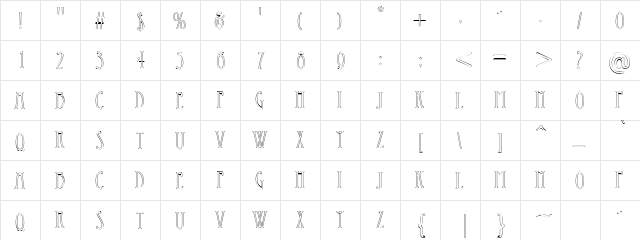
Decent GK Light
Design Context for Decent GK Typeface
Decent GK is a composed and adaptable typeface that performs quietly and consistently across a wide range of design contexts. Its slender proportions lend an understated elegance to any composition.